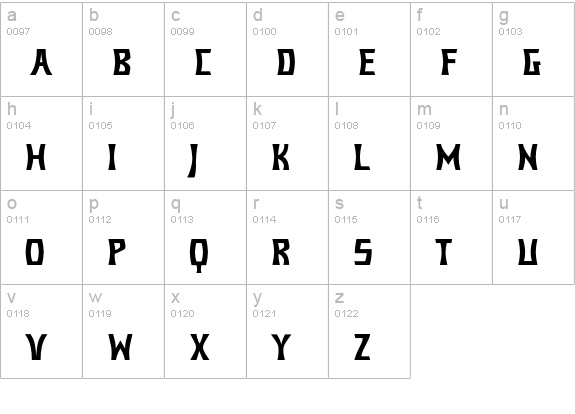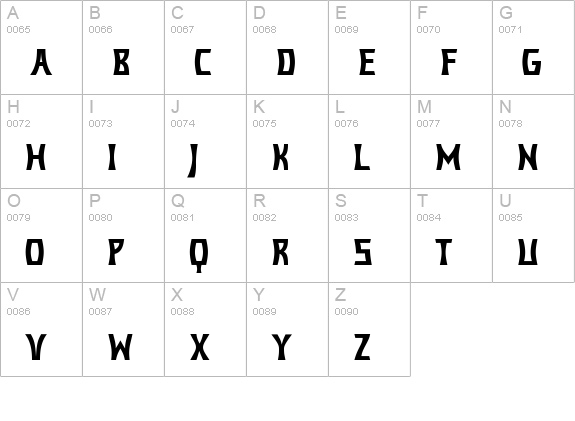
Despot Font Details
Introducing Despot font, a modern and elegant typeface that exudes sophistication and style. With its sleek lines and sharp edges, Despot font is perfect for adding a touch of luxury to your designs. This versatile font is suitable for a wide range of projects, from branding and advertising to packaging and editorial design. The best part? Despot font is completely free to download at FontsMarket.com, making it accessible to everyone looking to elevate their typography game without breaking the bank. Whether you're a seasoned designer or just getting started, Despot font is a must-have addition to your font library. Download it today and let your creativity soar with this stunning typeface.